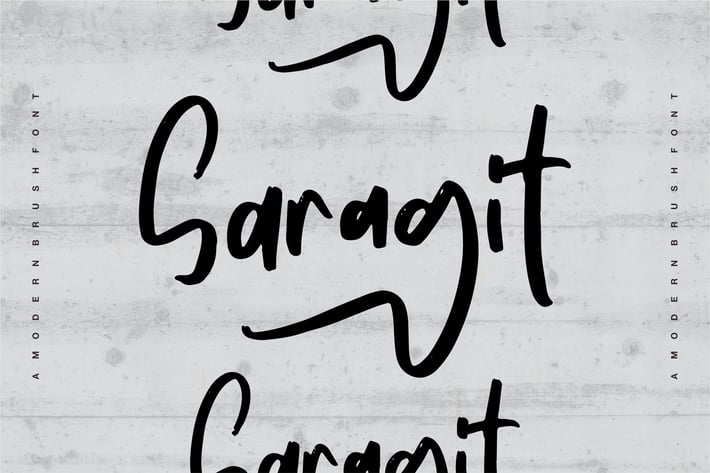
Saragit | A Modern Brush Font
Saragit | A Modern Brush Font with a calligraphy style, So beautiful on invitation like greeting cards, branding materials, business cards, quotes, posters, and more!